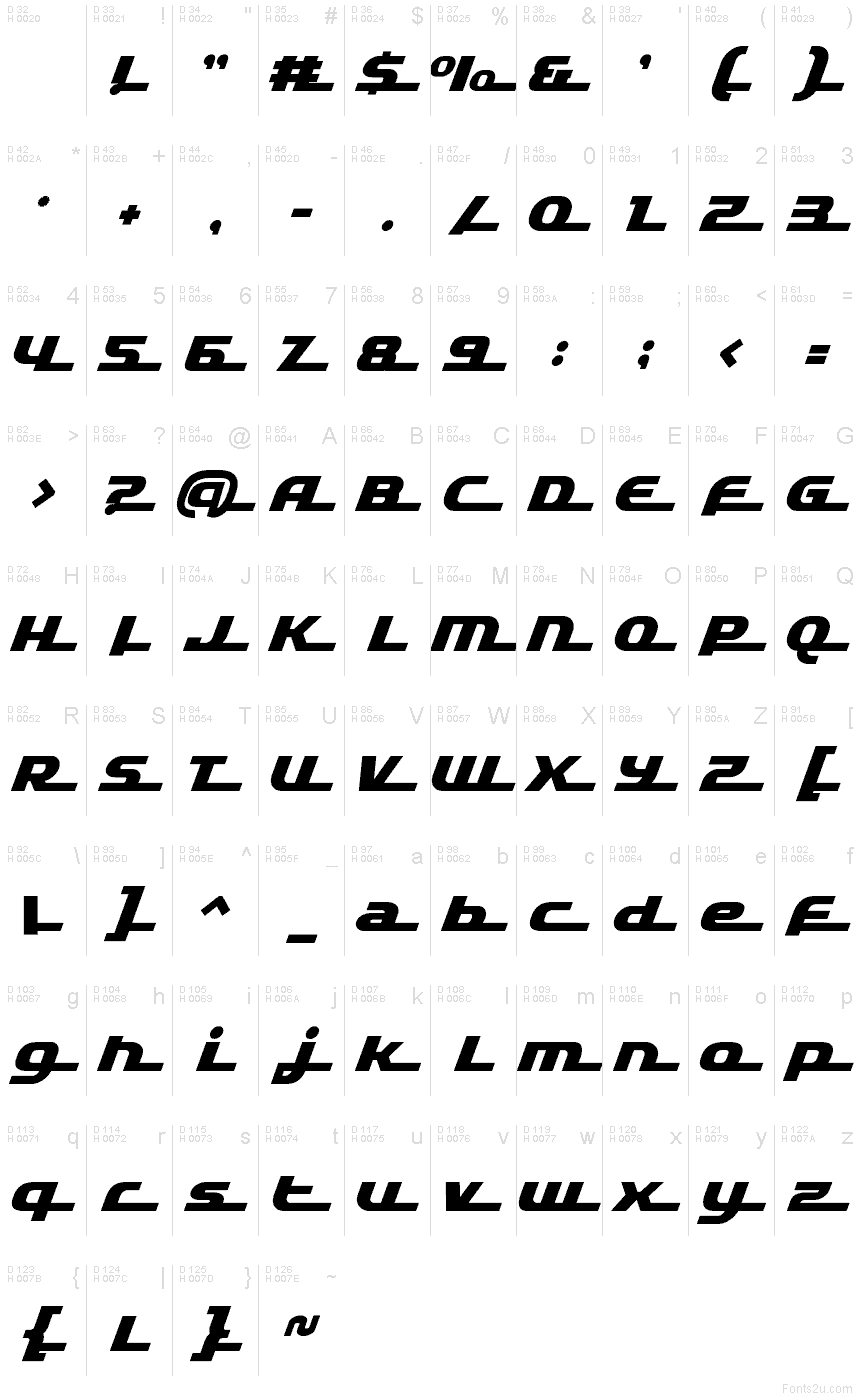
Rapido Racers Three
Rapido Racers Three font by PutraCetol Studio is an expanded techno display font with a sporty theme. With its bold letters, it can grab attention and make people stop at the project created to take a longer glance. Take advantage of Rapido Racers three by incorporating it into projects of your choice.